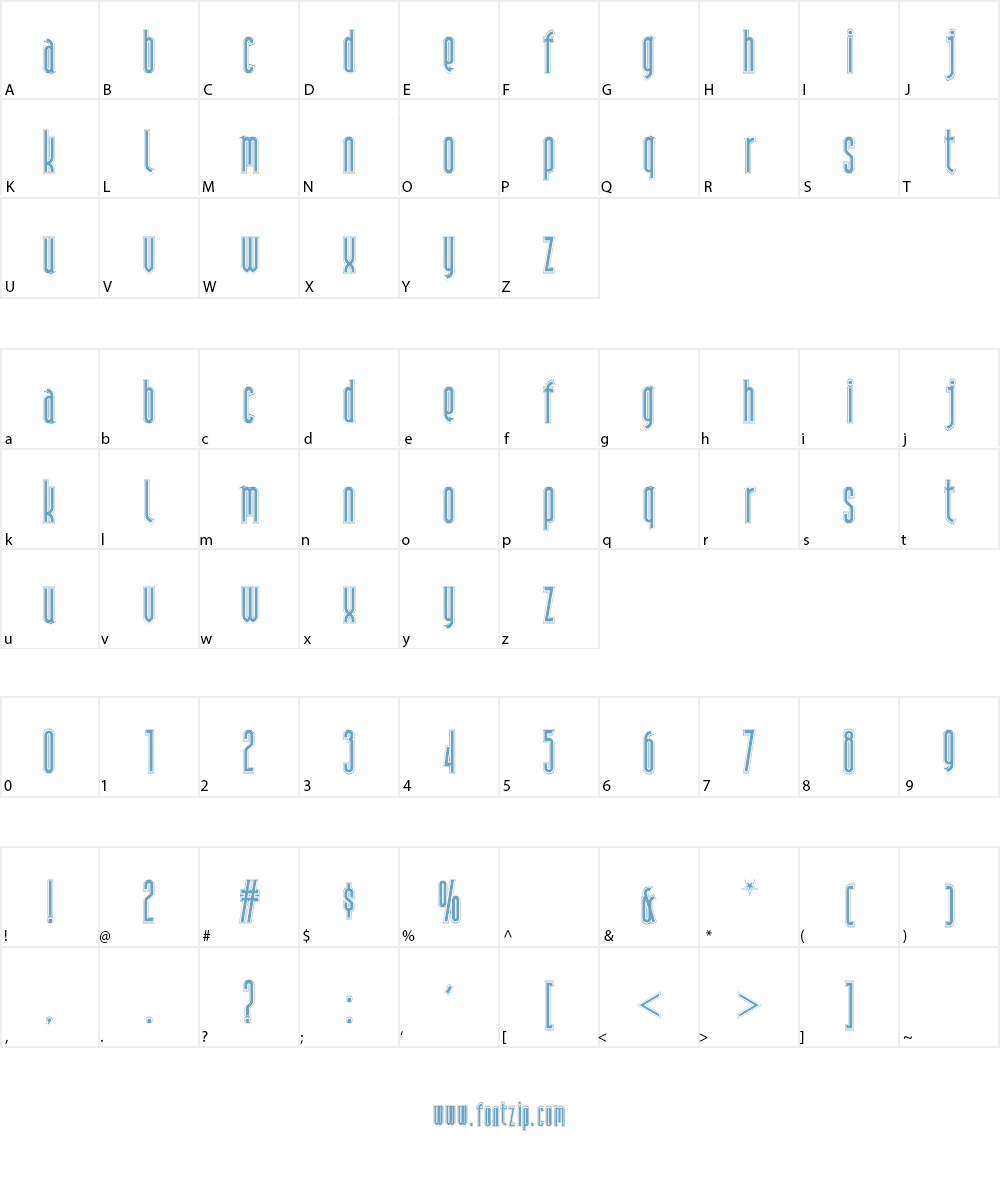
A font with a strong architectural feel, adapted from a design by the team at Uddi Uddi called Andover. In my version, I redrew all the letters, redesigning several to maintain consistency, expanded the character set to include large and small instances of the lowercase letterforms, and added a bold outline to simulate channeled metal lettering.